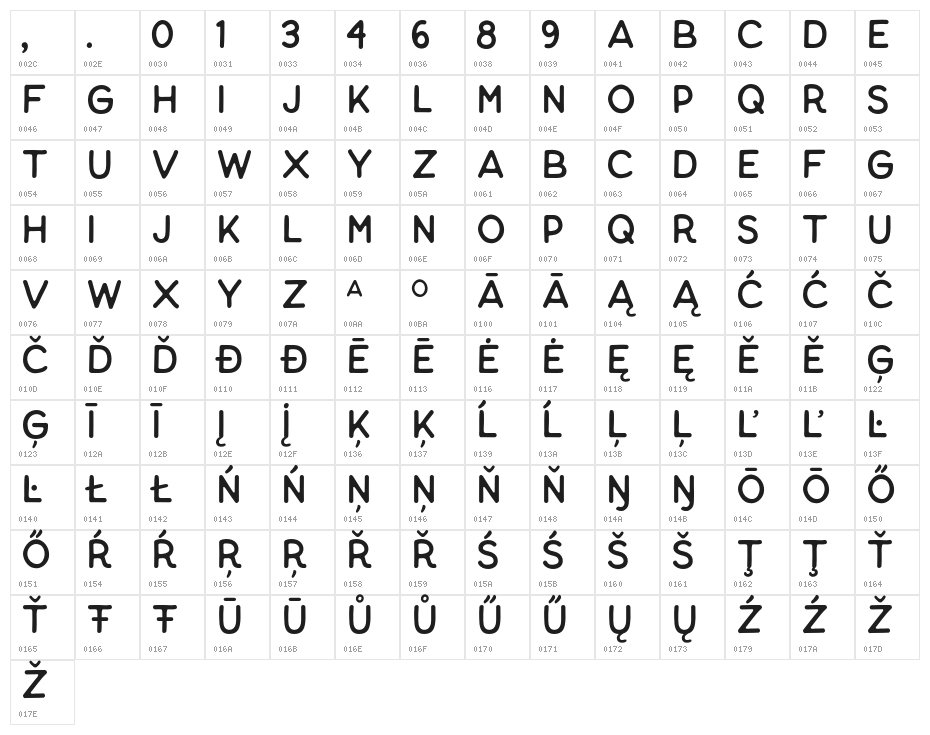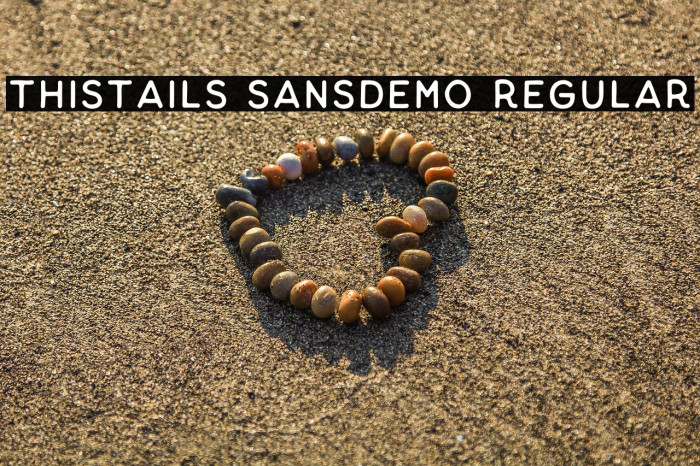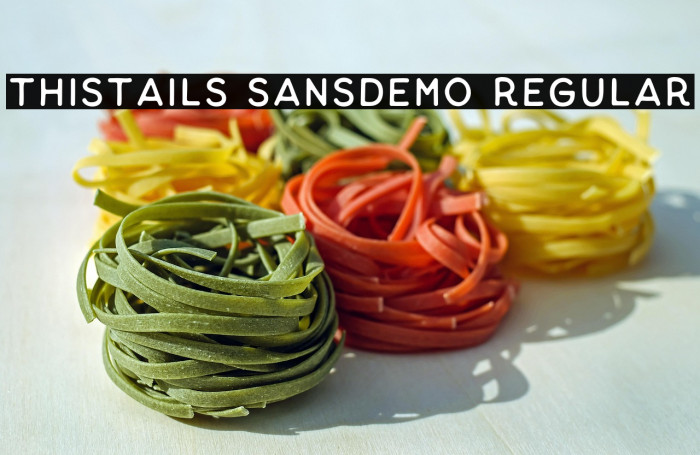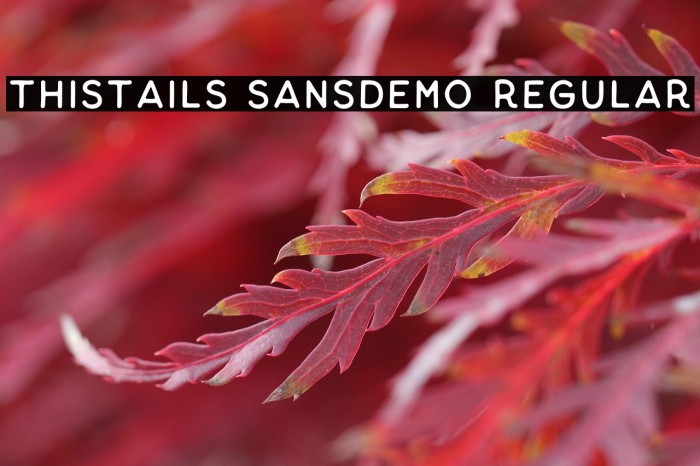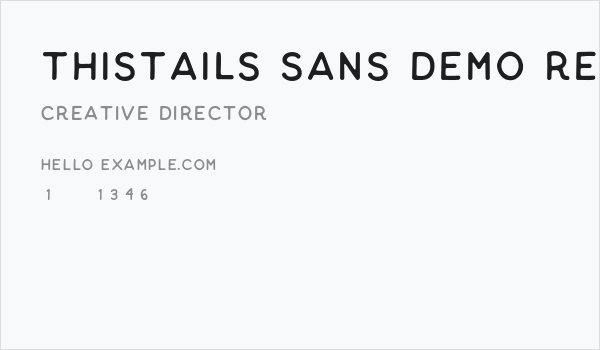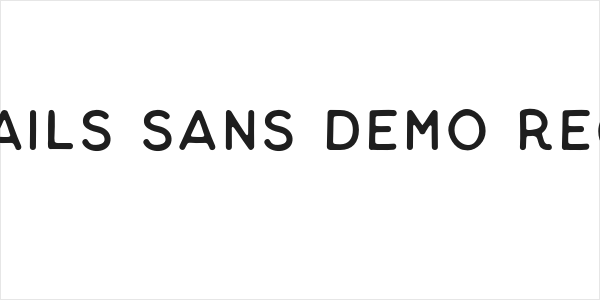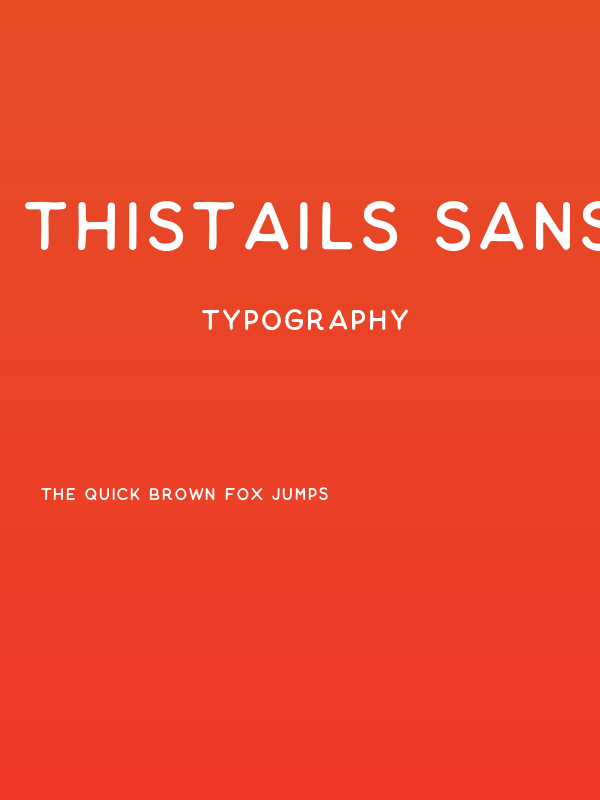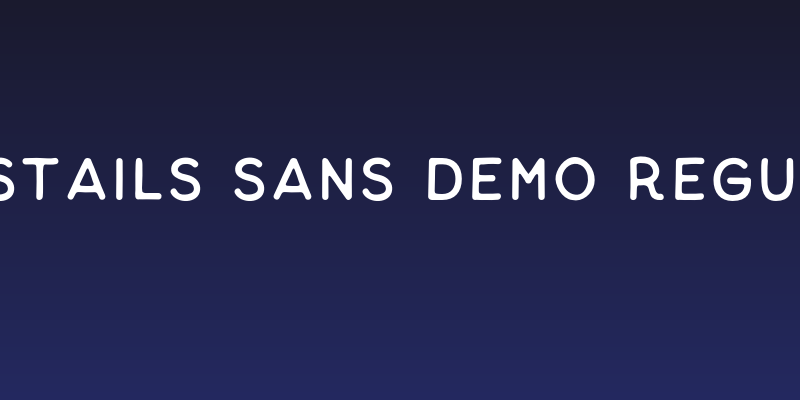
Thistails Sans_Demo Regular Font
Thistails Sans_Demo Regular Description
This font features a playful and rounded sans-serif style, characterized by its smooth curves and friendly appearance. The letters are evenly spaced, with a consistent stroke width that gives it a uniform look. The rounded edges and slightly thick strokes make it highly legible and approachable. It maintains a modern aesthetic while offering a touch of whimsy, making it suitable for a variety of design projects. The numerals and special characters follow the same rounded and bold style, ensuring consistency across all characters.
| Use Case | Headlines, Logos, Digital content |
| Proposed Projects | Ideal for children's books, educational materials, playful branding, and casual digital content. |